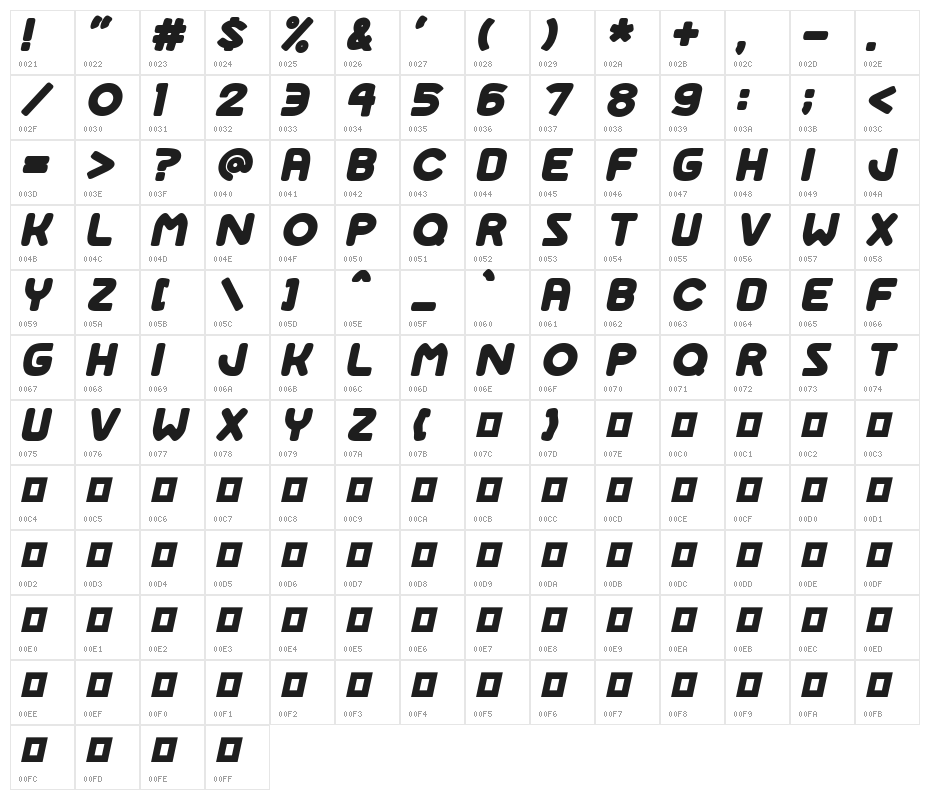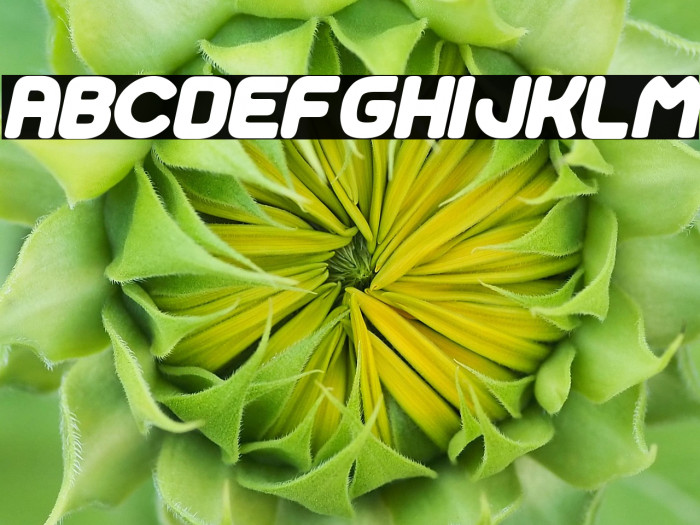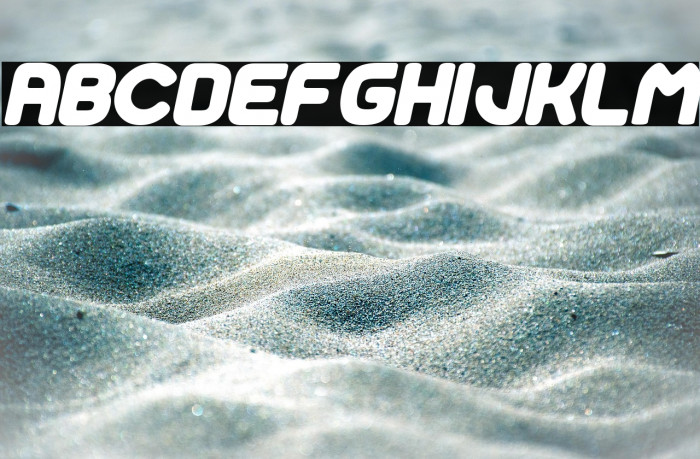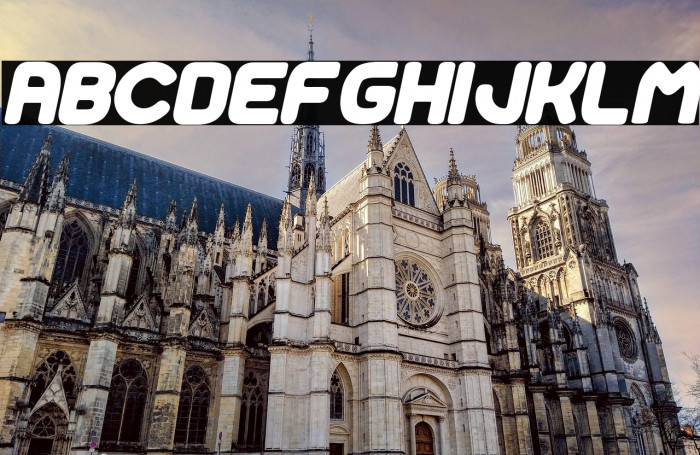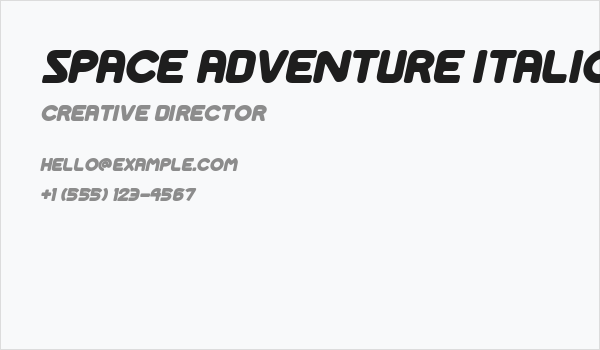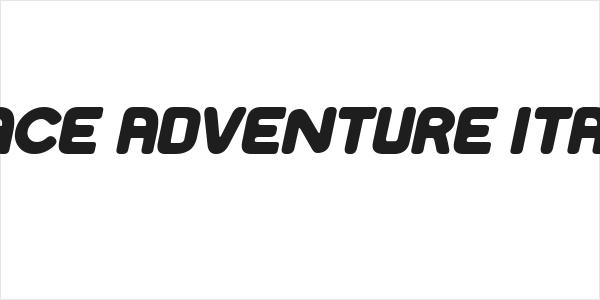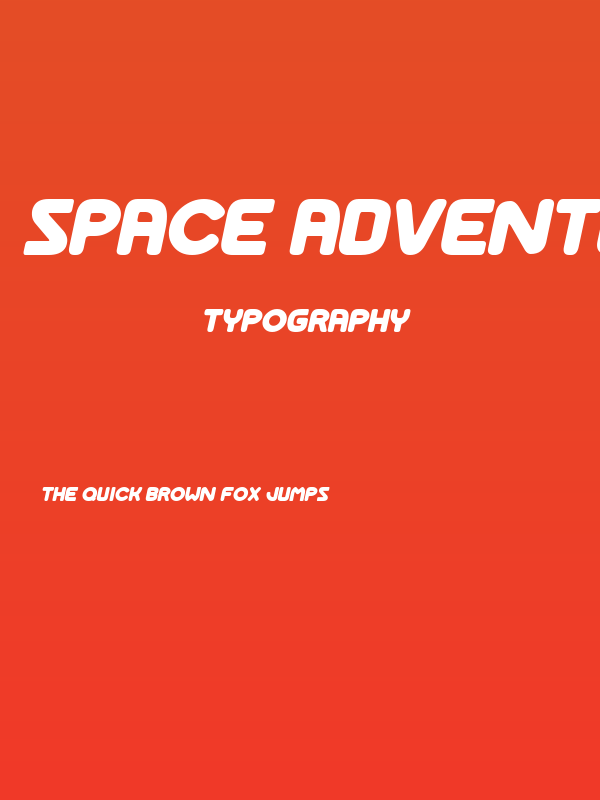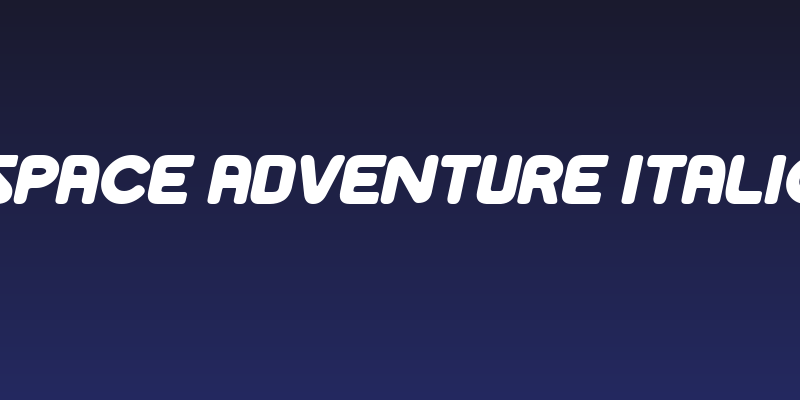
Space Adventure Italic Font
Space Adventure Italic Description
This font features a futuristic and adventurous style with a bold, italicized appearance. The characters are rounded and smooth, giving a sense of motion and dynamism. The uppercase and lowercase letters maintain a consistent width, creating a uniform look. The numbers and special characters follow the same design principles, ensuring cohesion across all elements. The overall design is sleek and modern, suitable for projects that require a sense of innovation and forward-thinking. The font's boldness and italic slant add emphasis and energy, making it ideal for eye-catching designs.
| Proposed Projects | Ideal for sci-fi themed posters, video game titles, tech branding, and futuristic advertisements. |